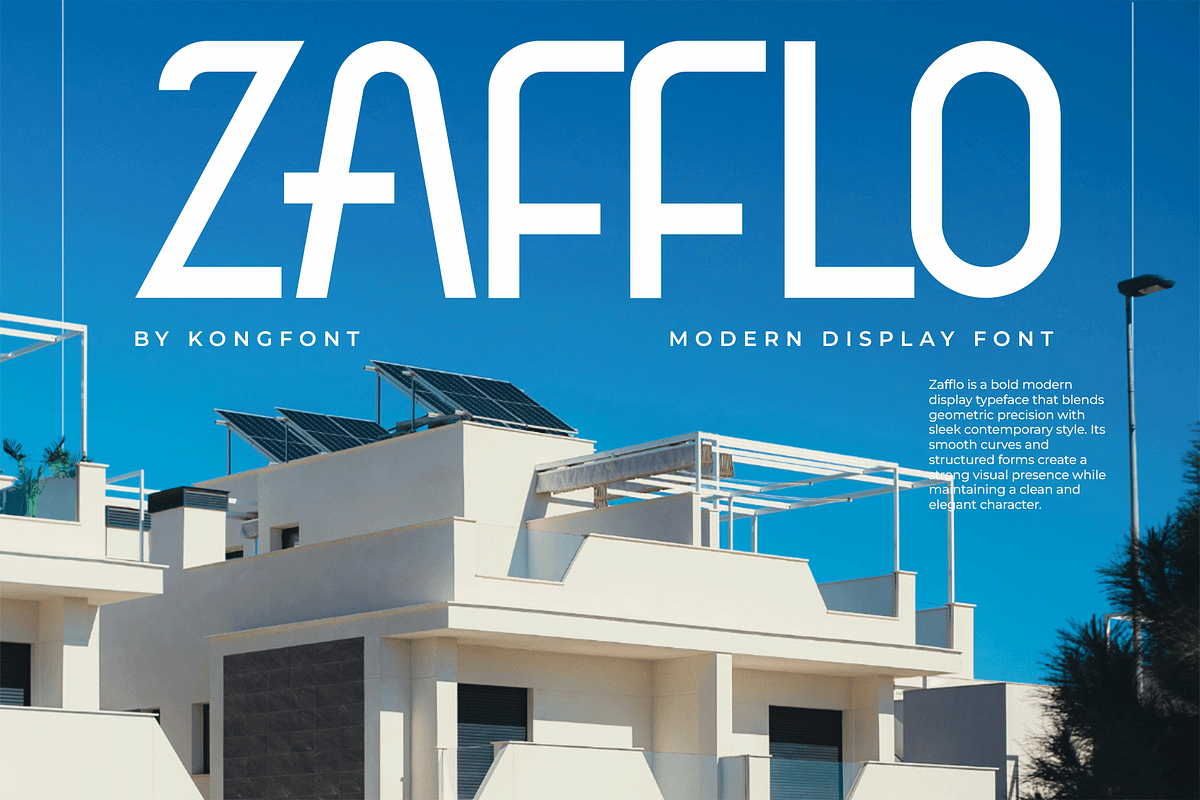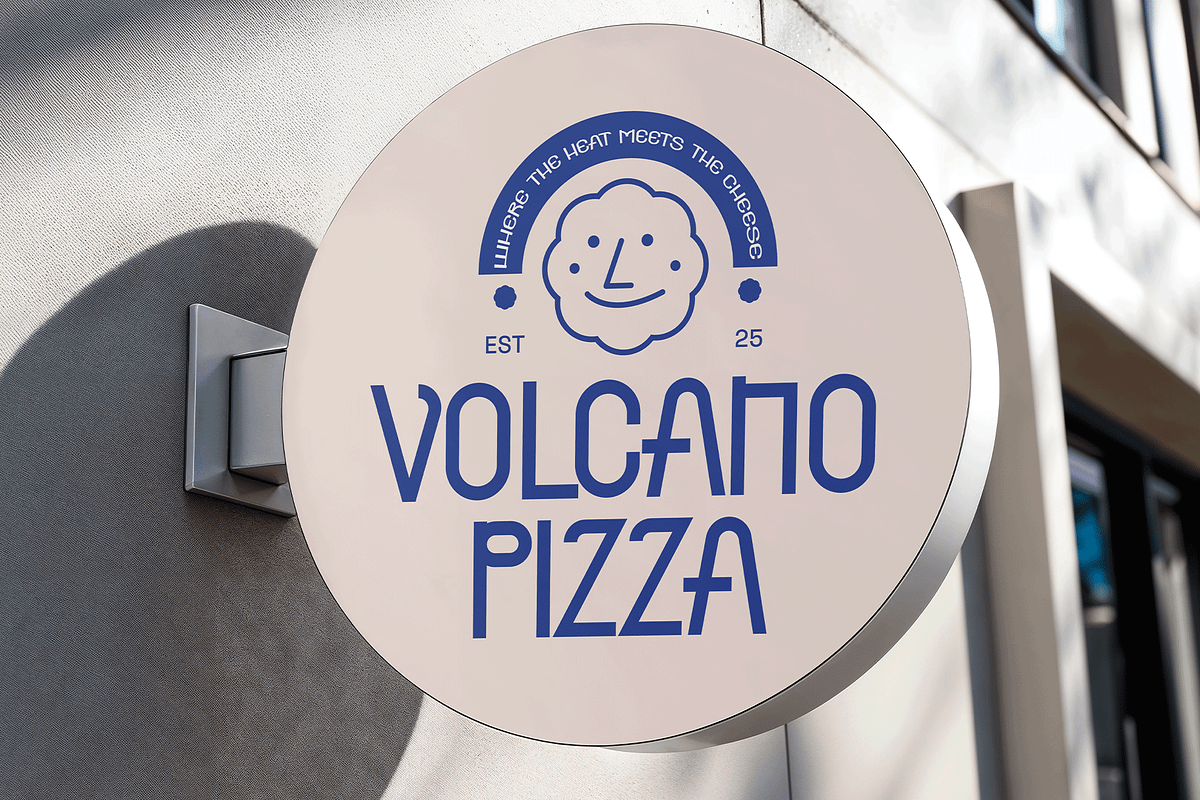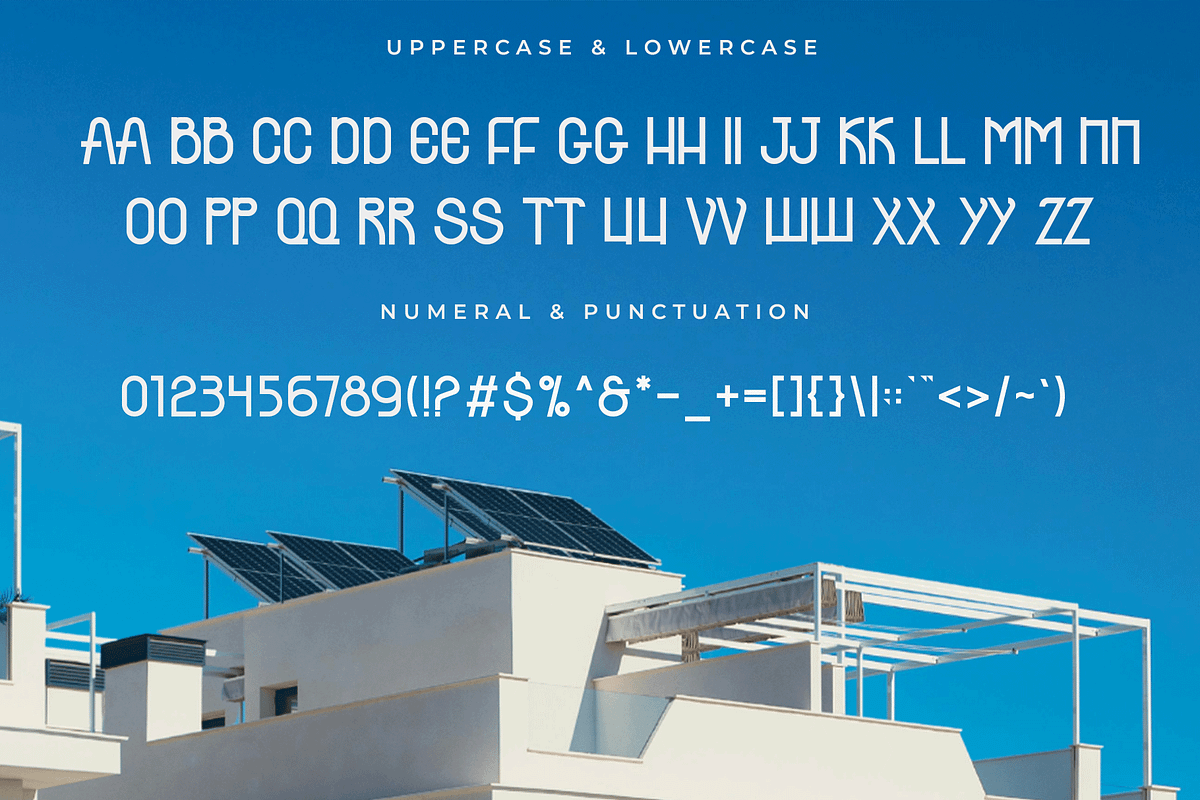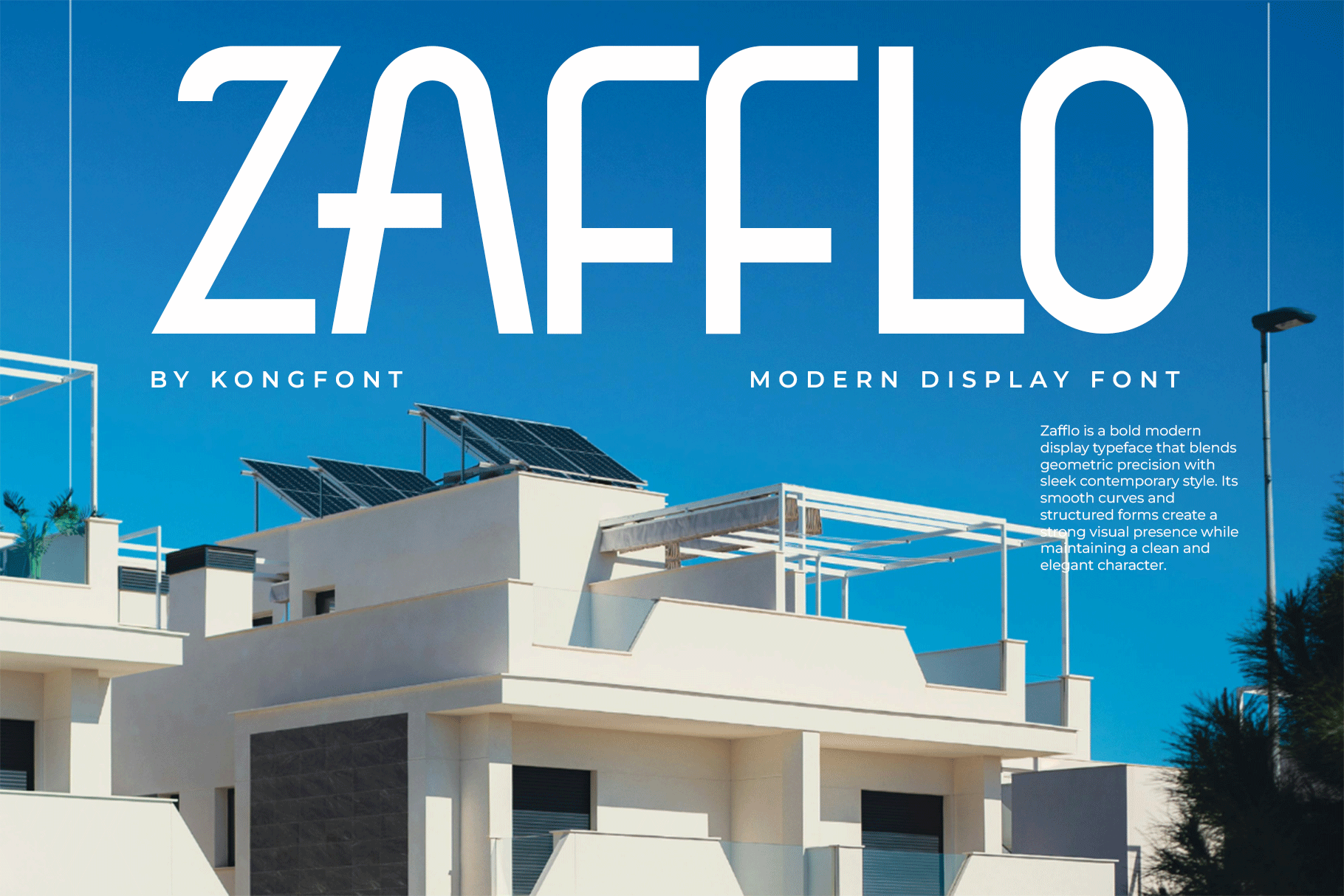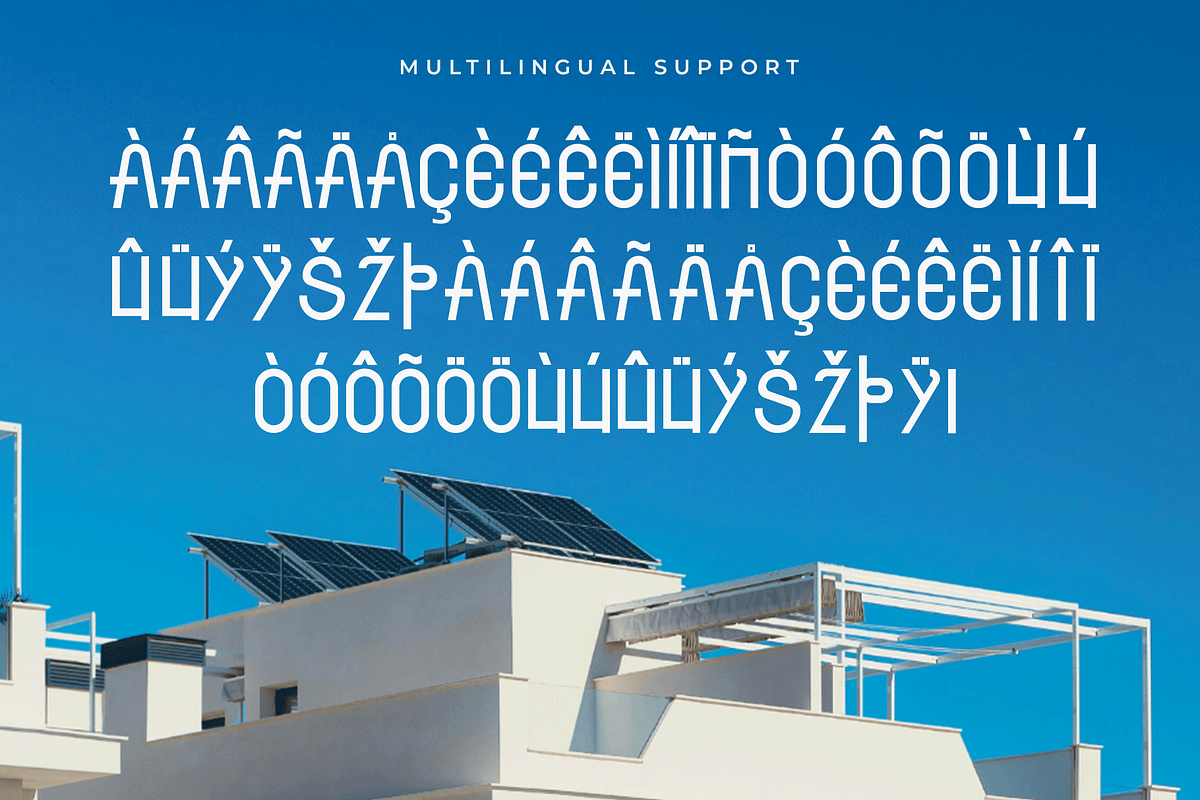
Zafflo – Modern Display Font
Zafflo is a modern display font designed to deliver strong visual presence with a clean and contemporary aesthetic. Featuring bold structures, distinctive letterforms, and balanced proportions, Zafflo brings confidence and style to headline typography.
Perfect for posters, branding, logos, product packaging, advertising campaigns, social media graphics, and modern editorial layouts, Zafflo is crafted to capture attention and elevate visual storytelling.